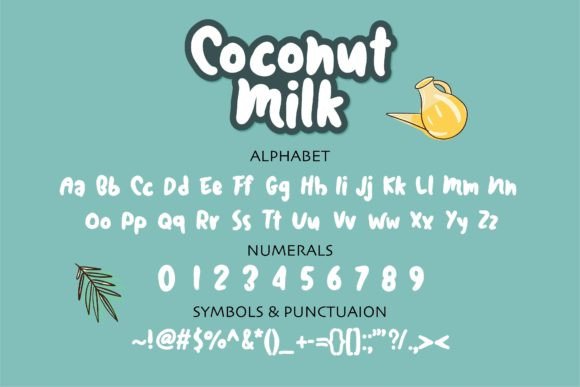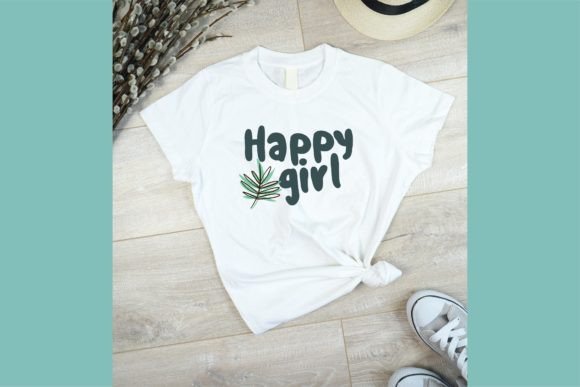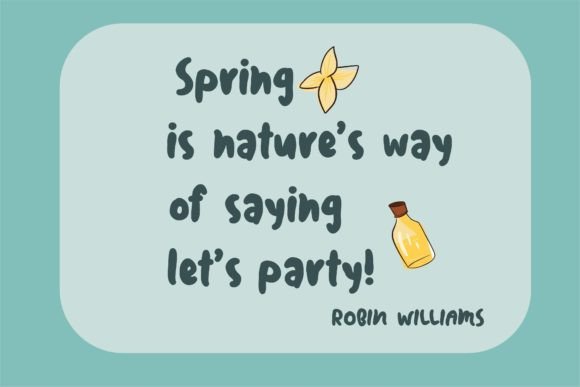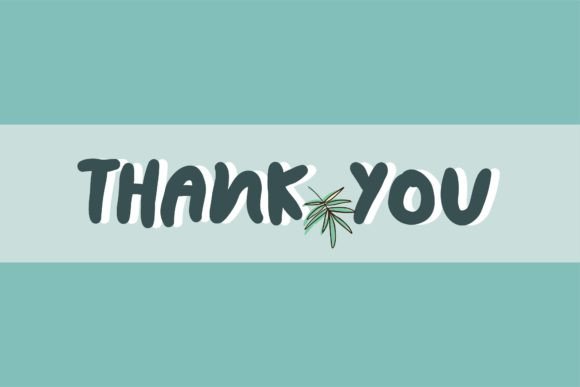
Introduction to Coconut Milk Font Font
Do you remember the thrill of discovering that perfect font for your design project? The one that brings your creative vision to life and leaves a lasting impression on your audience? I’m sure many designers can relate to that excitement. As I was working on a recent project, I stumbled upon the enchanting Coconut Milk Font Font, and I just had to share its magic with you.
This beautiful handwritten font is a treasure trove of creative possibilities, perfect for designers looking to add a personal touch to their work. With its natural and unique style, Coconut Milk Font Font is an ideal choice for a wide range of designs, from wedding invitations to logos and business cards. Its high-quality design and transparent background make it a valuable resource for any creative project.
Key Features of Coconut Milk Font Font
- Perfect for designers looking for a distinctive and creative design element to elevate their projects.
Honest Review: Coconut Milk Font Font
As a designer, I’m always on the lookout for high-quality design resources that can elevate my creative projects. The Coconut Milk Font Font is one such find, and I’m excited to share my honest review.
Overall, I’m impressed with the Coconut Milk Font Font and would definitely recommend it to fellow designers. With its high-quality design and transparent background, it’s a valuable resource for any creative project.
- Unique and modern aesthetic
Tips for Getting the Most Out of Coconut Milk Font Font
For best results, use Coconut Milk Font Font on a transparent background to create a seamless design. You can also use the font in combination with other design resources to create a high-quality and visually appealing design.
Coconut Milk Font Font is a versatile design resource that can be used in a variety of creative projects, including logo design, branding, and digital marketing materials. It’s also a great choice for creating eye-catching social media graphics and blog posts.